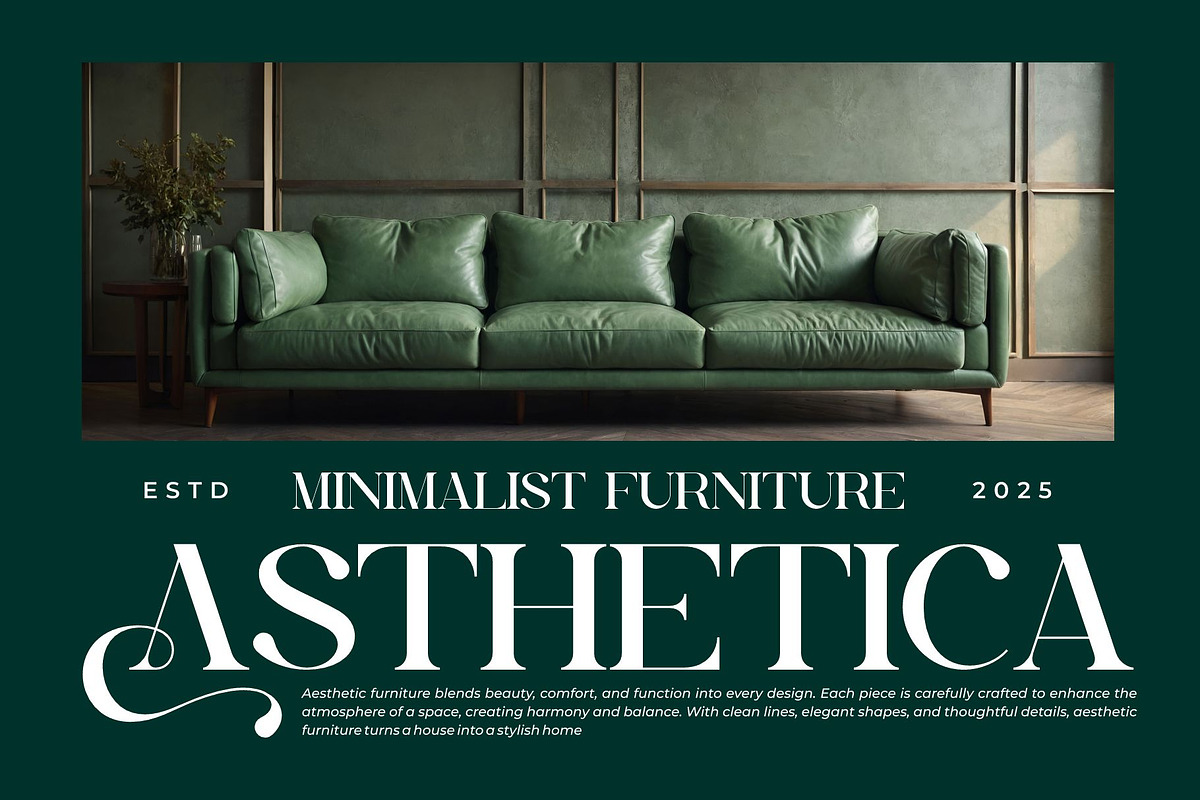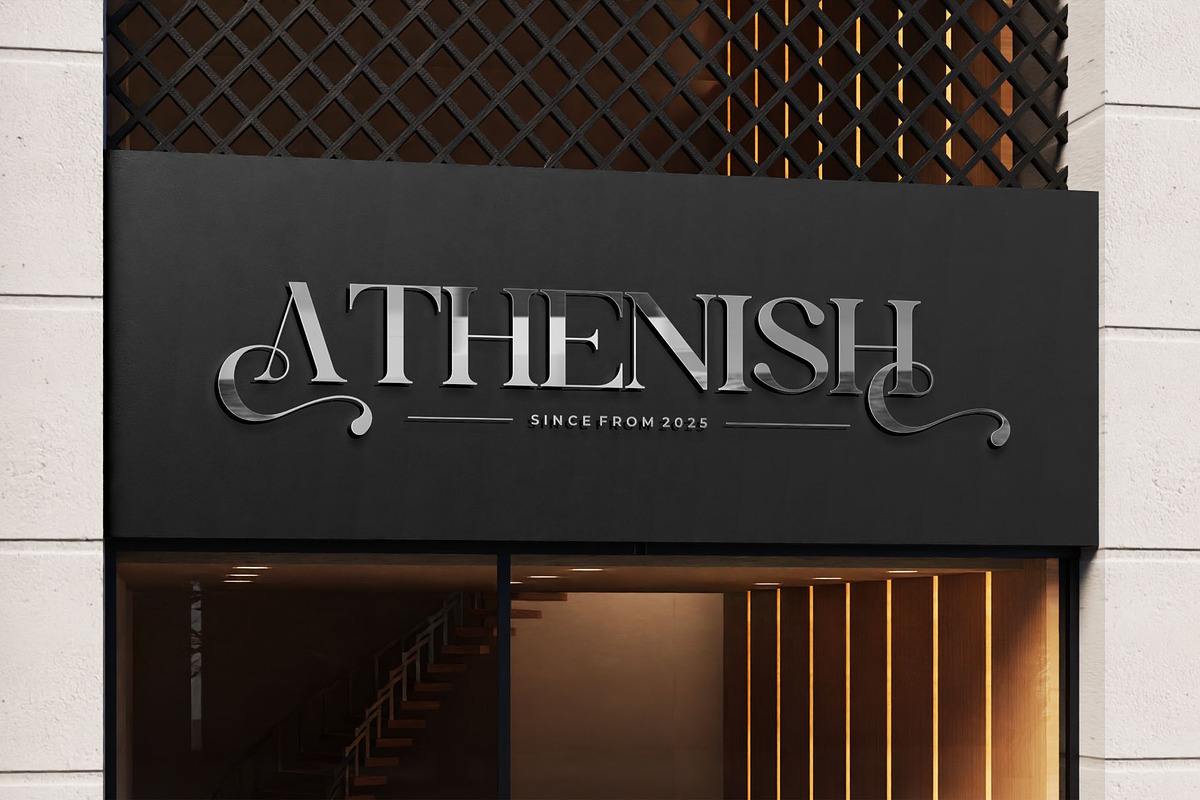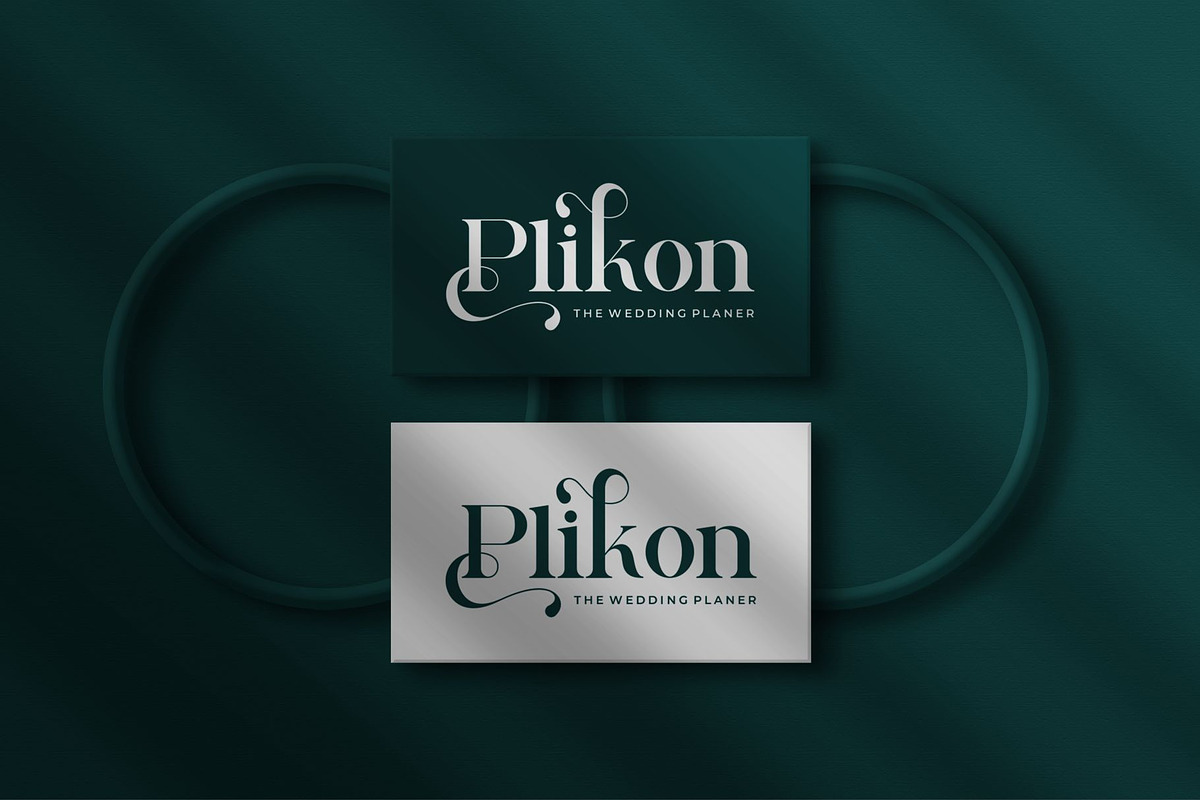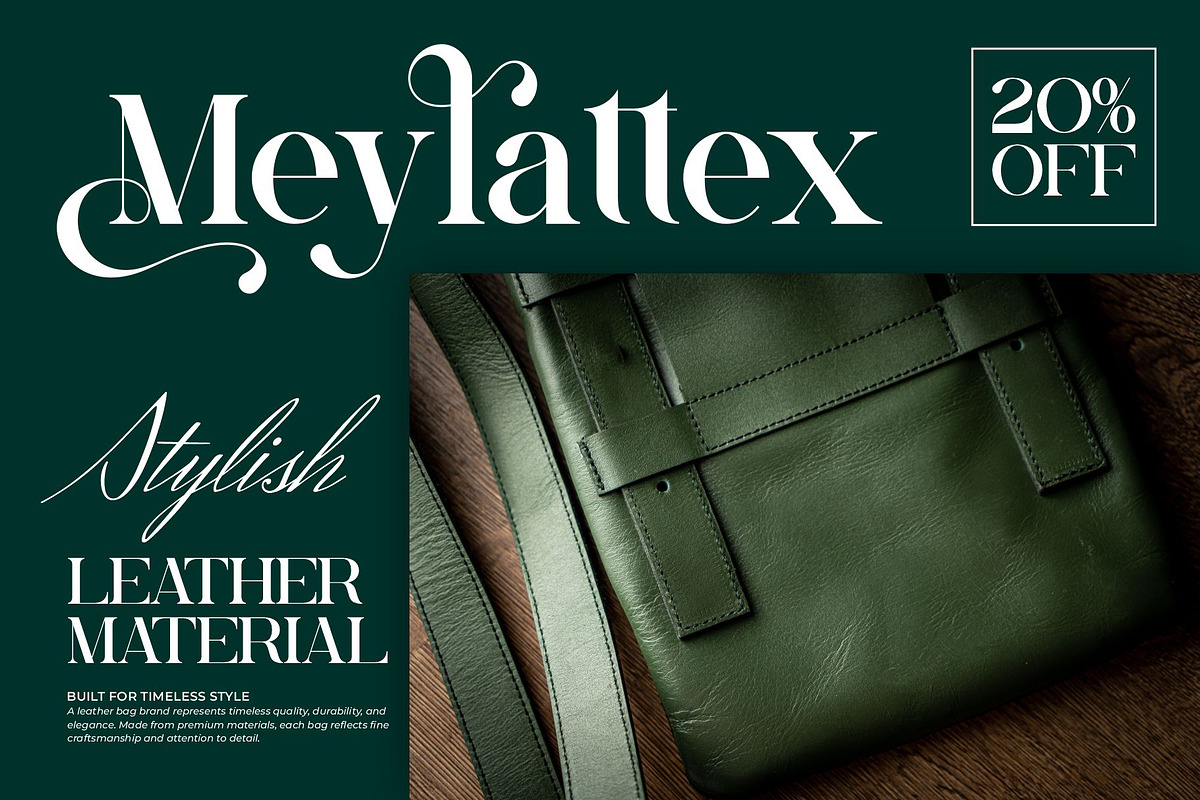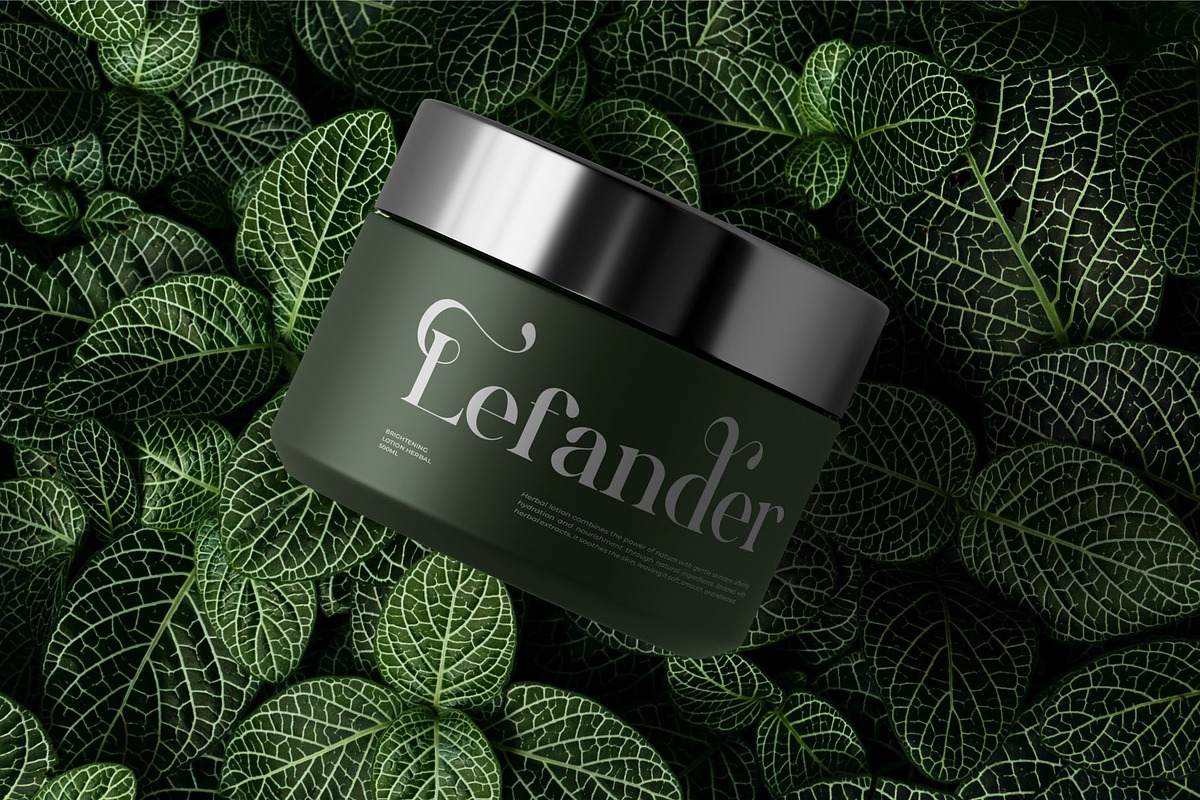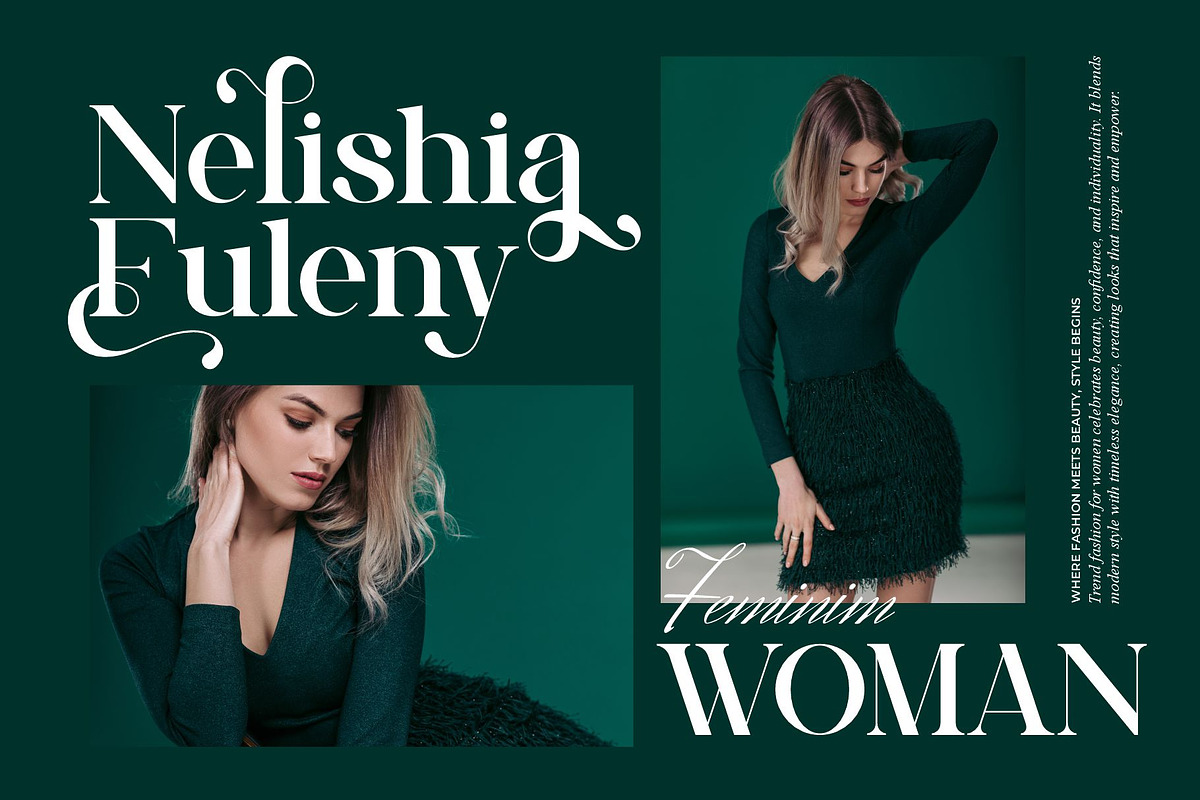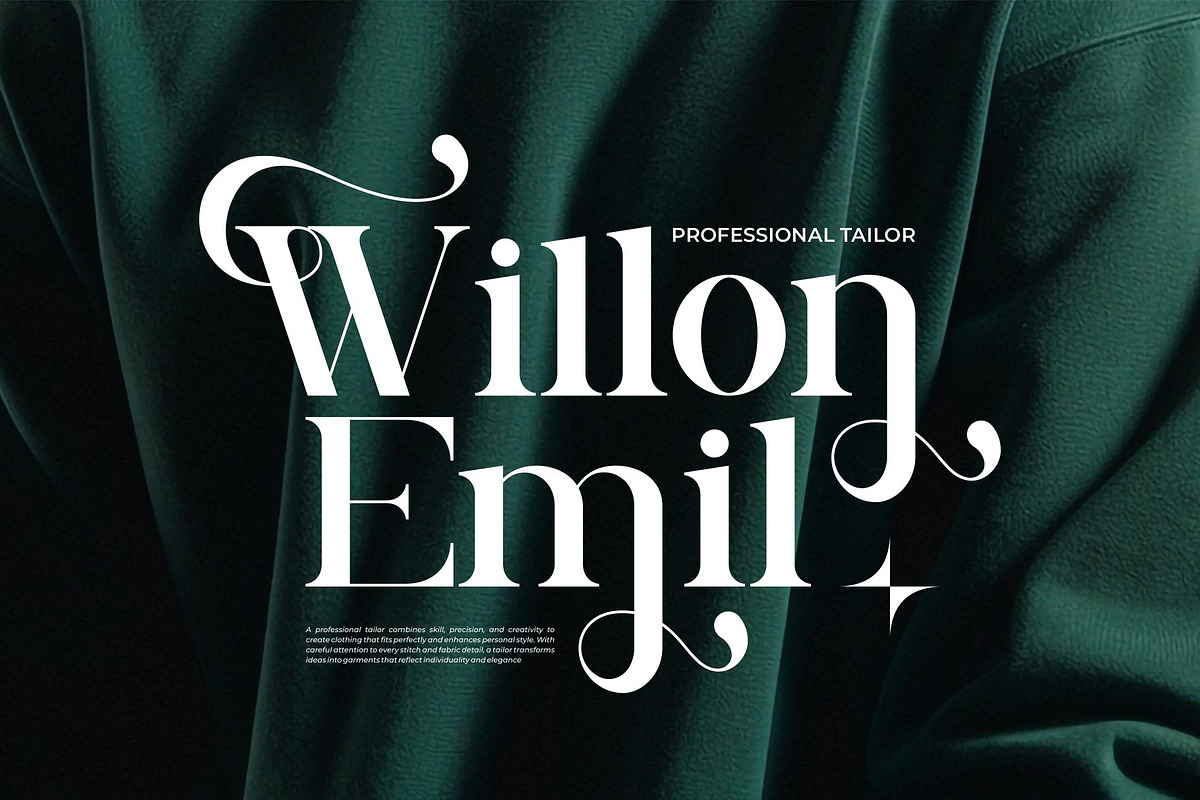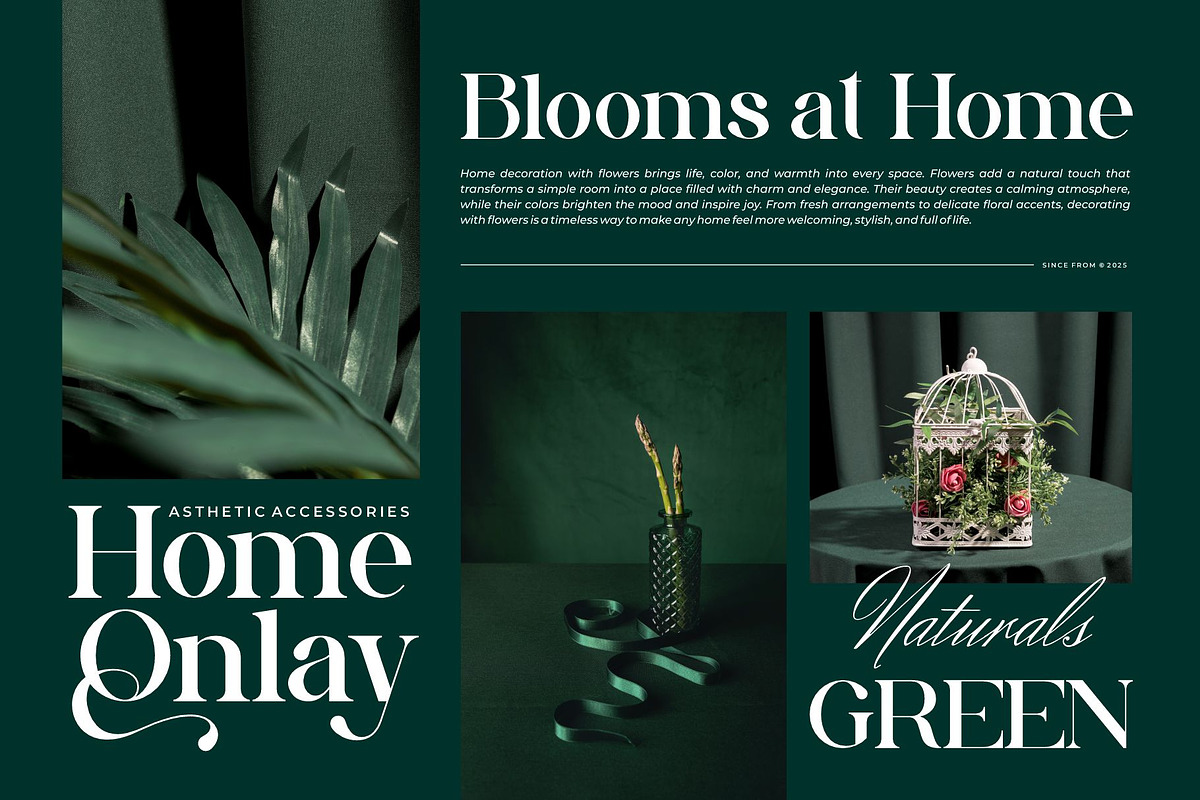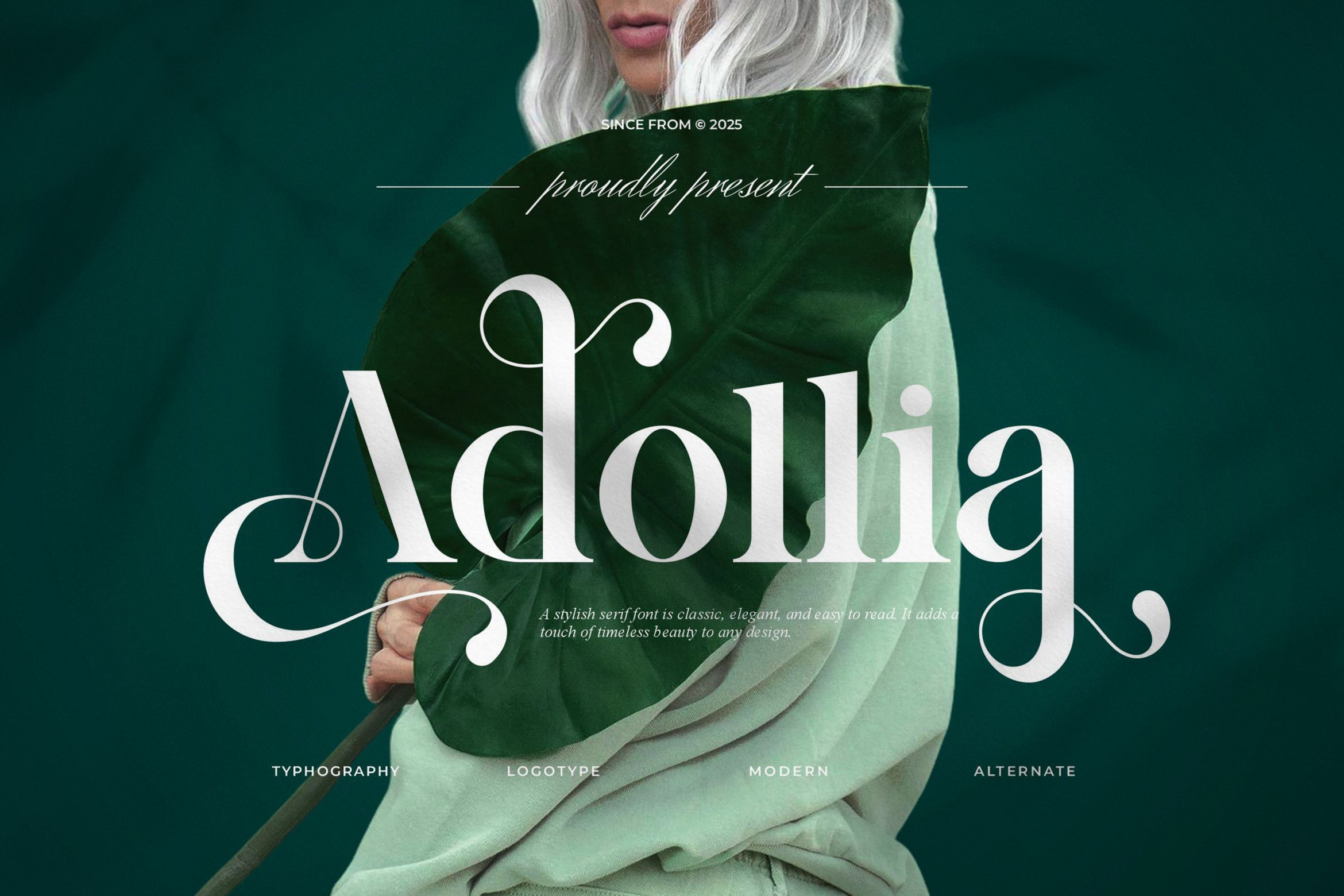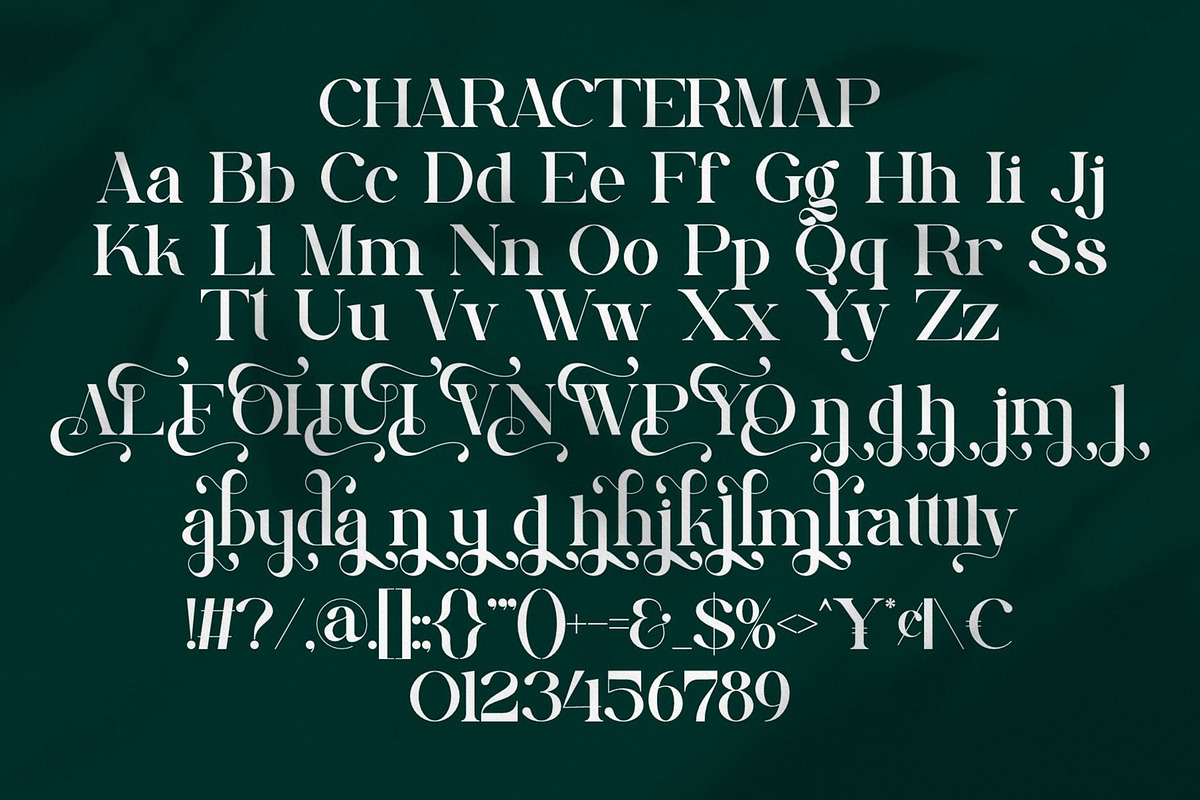
Adollia || Modern Elegant Serif Font
Adolia Serif is a modern and elegant font type for all branding and logo designs. This modern and elegant serif font has a beautiful character. This font is suitable for invitation card designs, cool logos, movie titles, movie names, business cards, book titles, brand names, and various other designs. Adolia Serif is a smooth serif font that exudes sophistication and the moment. Its stylish ligatures and alternate make this font a perfect partner for any project.
- Ligature & alternate